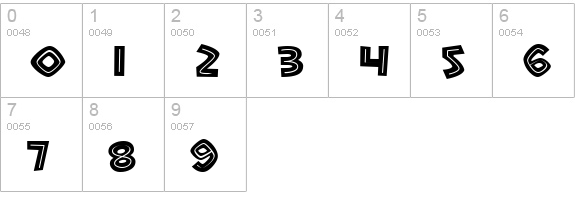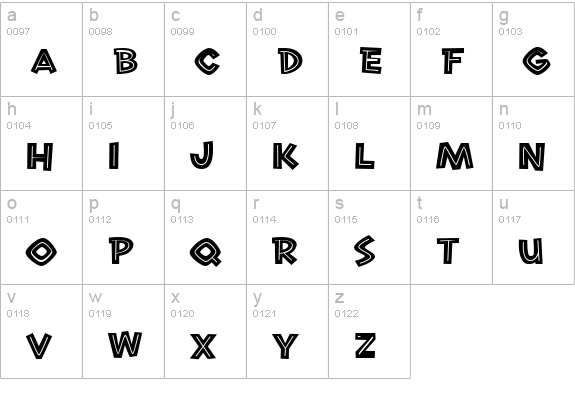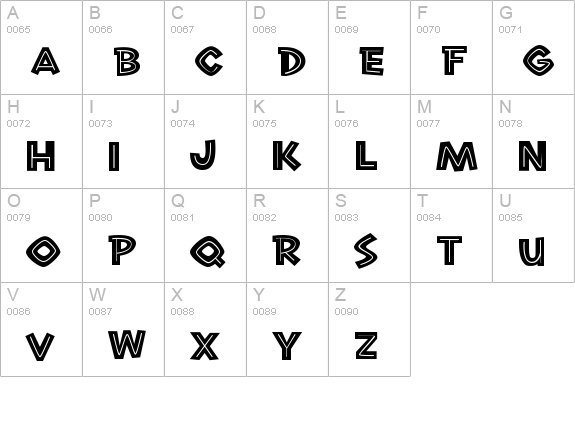
Roast Beef BTN Inline Font Details
Roast Beef BTN Inline font is a stylish and modern typeface that exudes sophistication and elegance. Its sleek lines and bold presence make it perfect for a variety of design projects, from logos to packaging and everything in between. The inline style adds a unique touch that sets it apart from other fonts. What makes Roast Beef BTN Inline font even more appealing is that it is freely available to download at FontsMarket.com. This means you can easily access this high-quality font without any cost, making it a great choice for designers on a budget or anyone looking to add a touch of class to their projects. Don't miss out on the opportunity to enhance your designs with the striking Roast Beef BTN Inline font today!